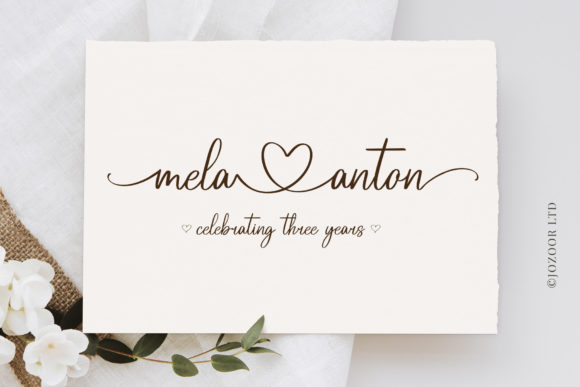
Randy Sofia Font
Randy Sofia is a romantic and sweet calligraphy typeface with characters that dance along the baseline. It will add a luxury spark to any design project that you wish to create! This font is PUA encoded which means you can access all of the amazing glyphs and ligatures with ease!